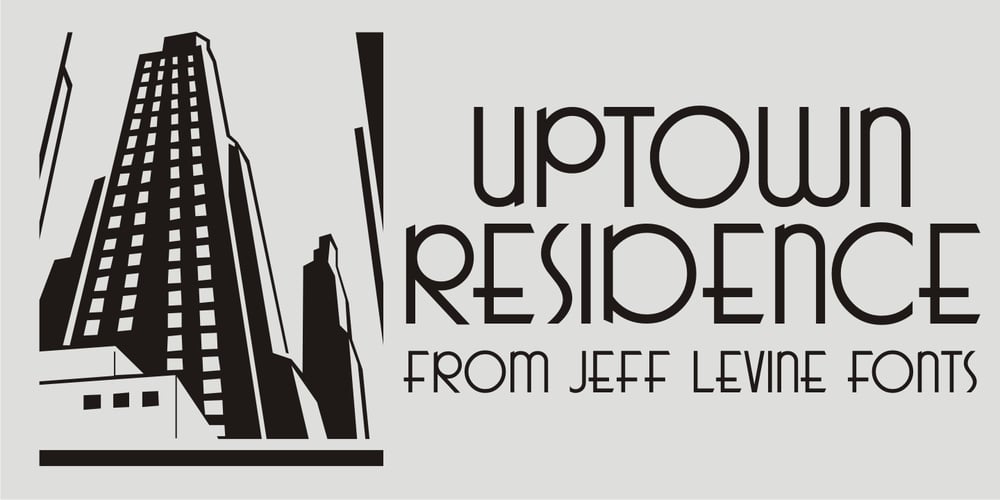
Uptown Residence JNL Font Family was designed by Jeff Levine and published by Jeff Levine. Uptown Residence JNL contains 1 styles and family package options. The title card for the 1940 film “Too Many Husbands” served as the inspiration for Uptown Residence JNL.